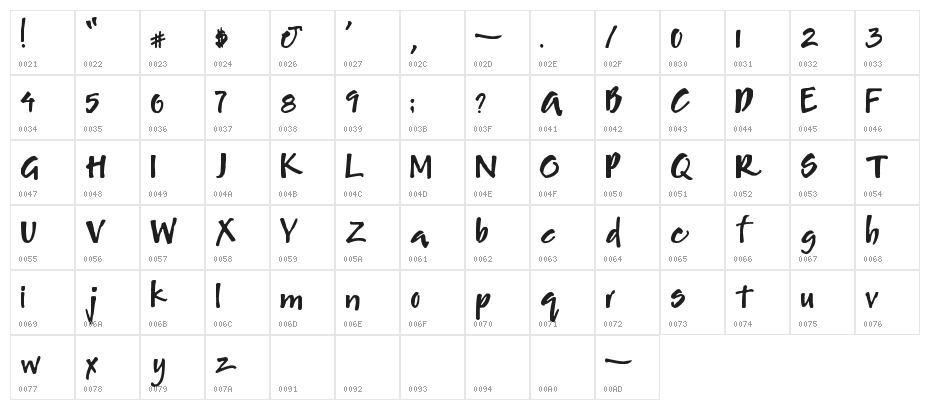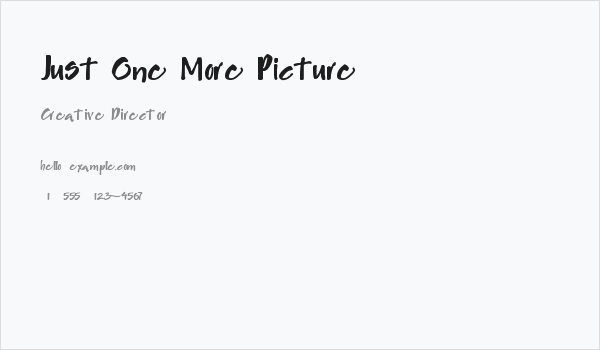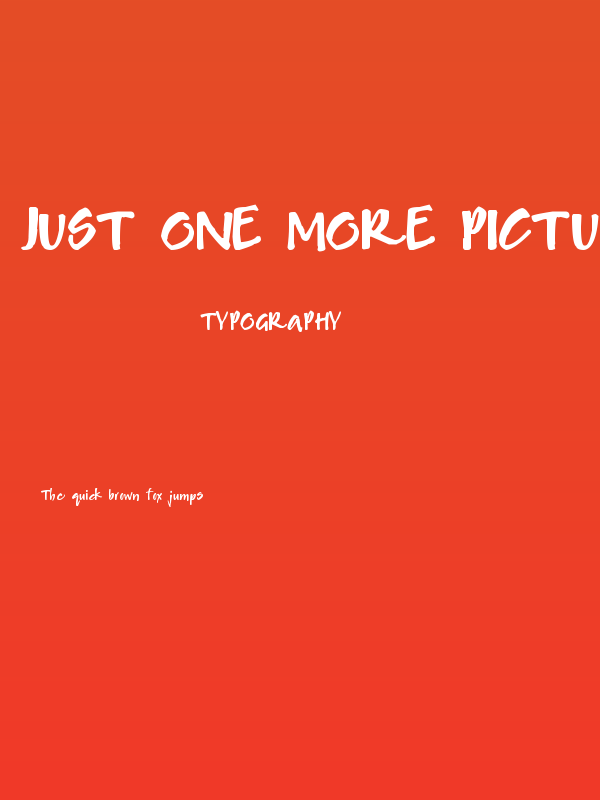
Just One More Picture Font
Just One More Picture Description
This font features a bold and expressive handwritten style, characterized by its dynamic and irregular strokes. The letters have a playful and energetic appearance, with varying thickness that adds to its casual and informal vibe. The uppercase letters are bold and prominent, while the lowercase letters maintain a consistent flow, enhancing readability. The numbers and special characters follow the same lively and spontaneous design, making the font versatile for creative projects. Its unique style is perfect for adding a personal touch to any design.
| Proposed Projects | Ideal for greeting cards, posters, social media graphics, and branding projects that require a personal and informal touch. |